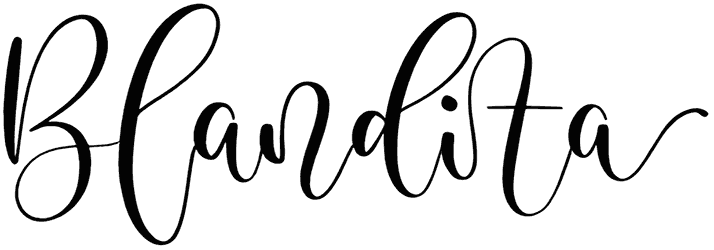
Blandita Font
Blandita is a font that gives off a stylish and serious vibe to your text. This calligraphy font contains smooth and curly characters with a continuous effect that presents a professional look. You can use this font to write documentary books, movie titles, shop signs, and fashion headlines. This feminine font has two styles in normal and italic forms.